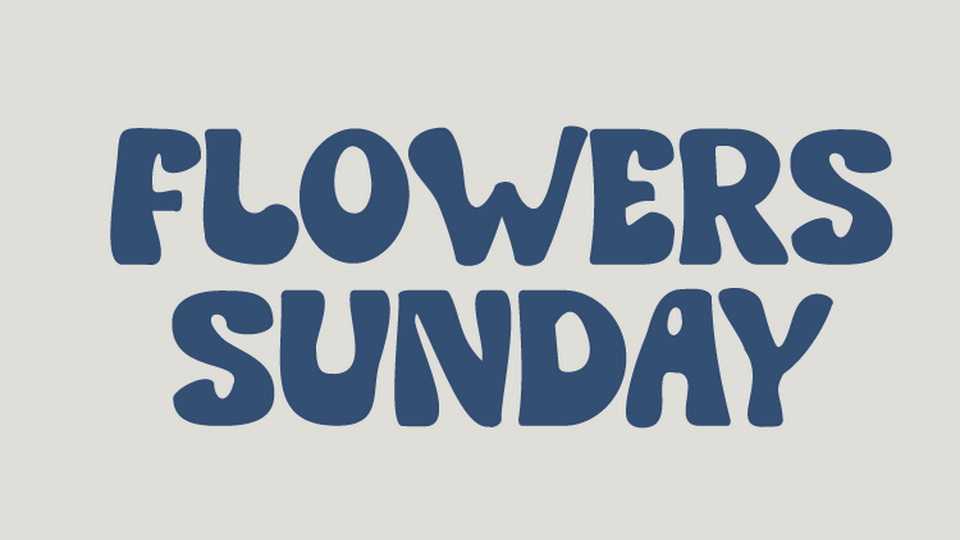
Download Flowers Sunday font, a retro handwritten display typeface. Flowers Sunday has a cool and playful look that can be used for logos, branding, invitations, stationery, wedding designs, social media posts, and so much more.
Designer: Rvandtype Studio